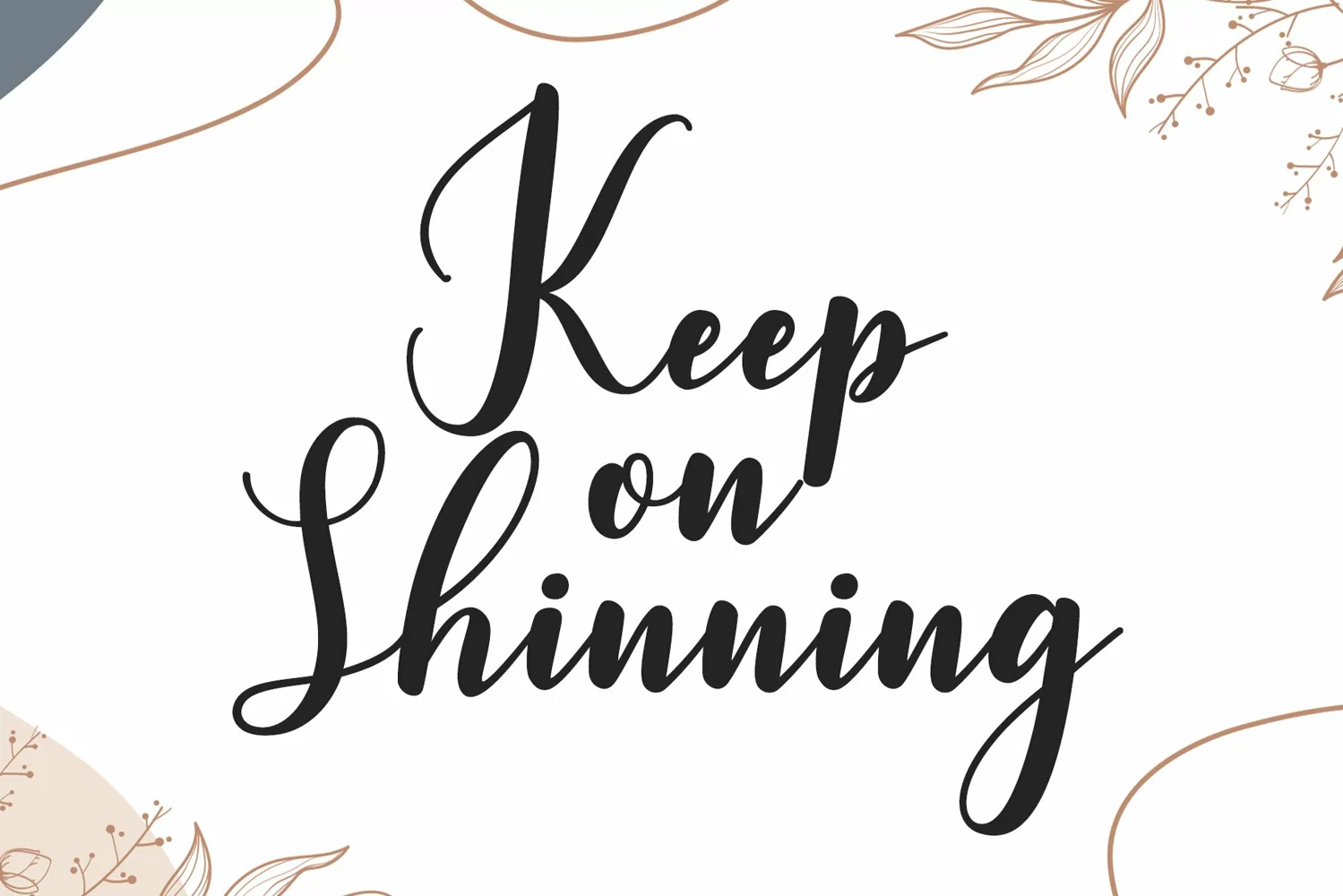
Zachary is an assertive and distinct script font.
Expertly designed to make your creation look out of this world, this font will look gorgeous on a variety of ideas.
This font is suitable for Wedding invitation, Love themed design, mugs, christmas cards, poster design, SVGs, Canva Templates, Sublimation Designs, Monogram SVG, Paper Cutting Templates, Embroidery Digital Designs etc,
Alternate Character
Ligature Character